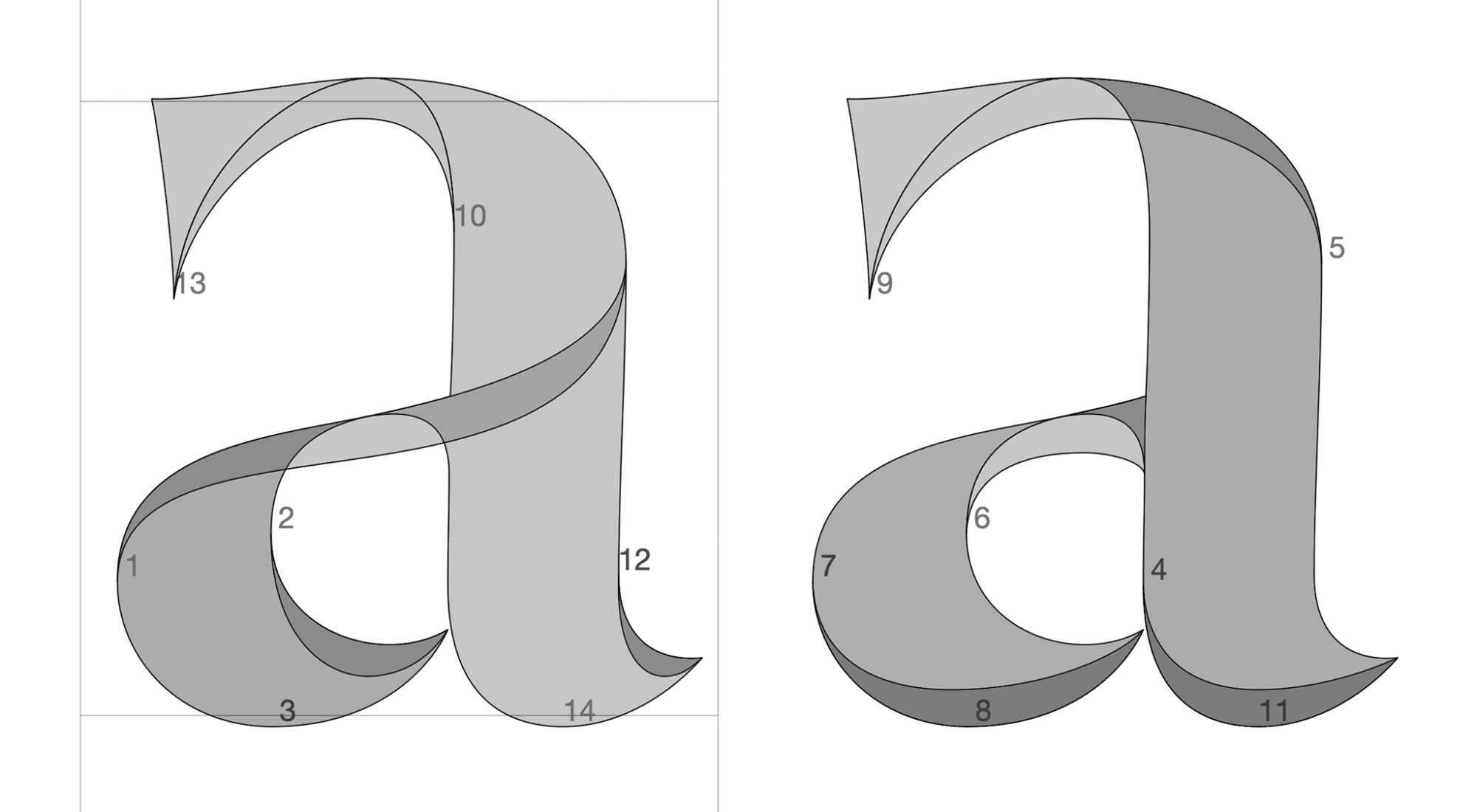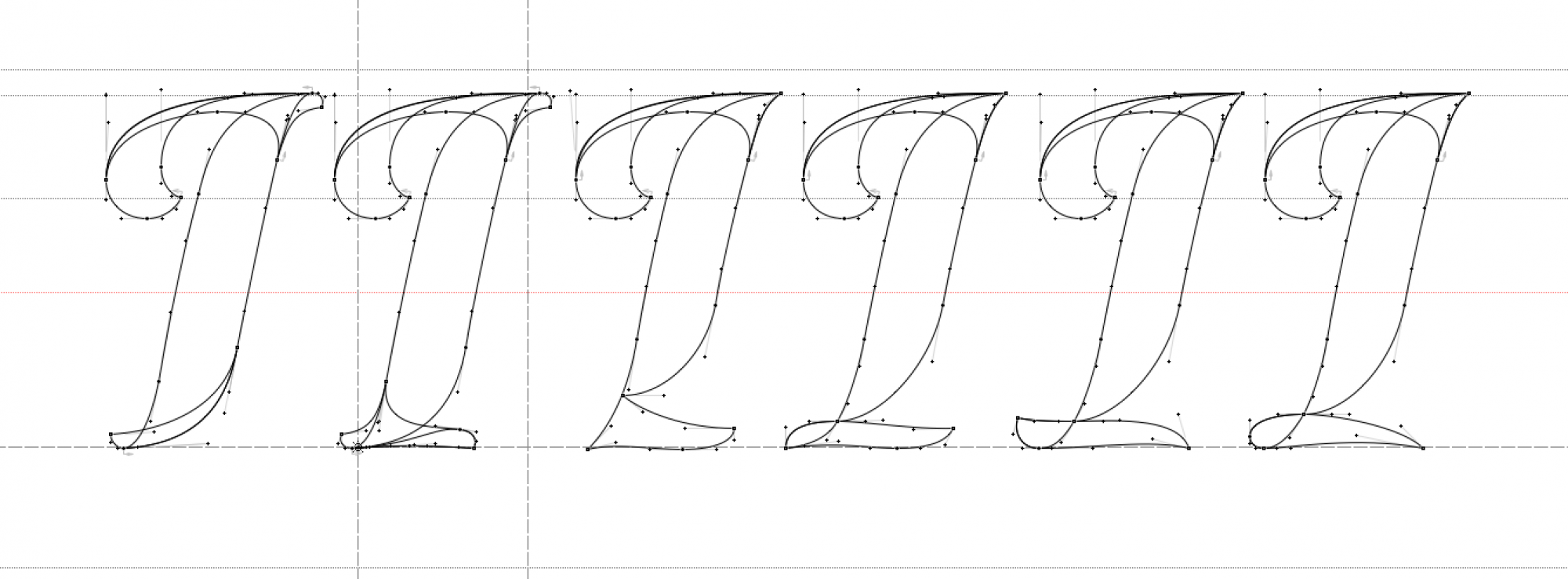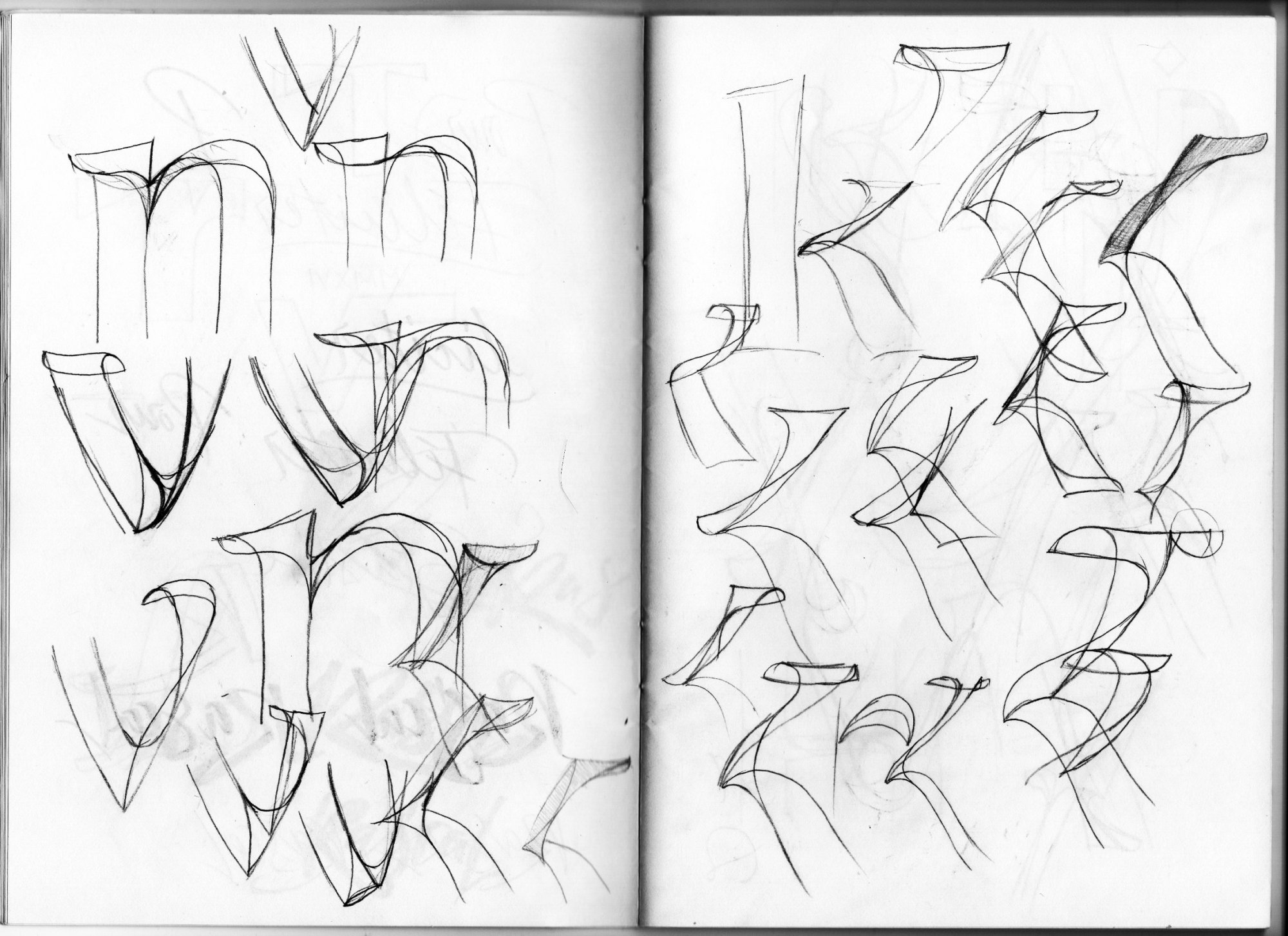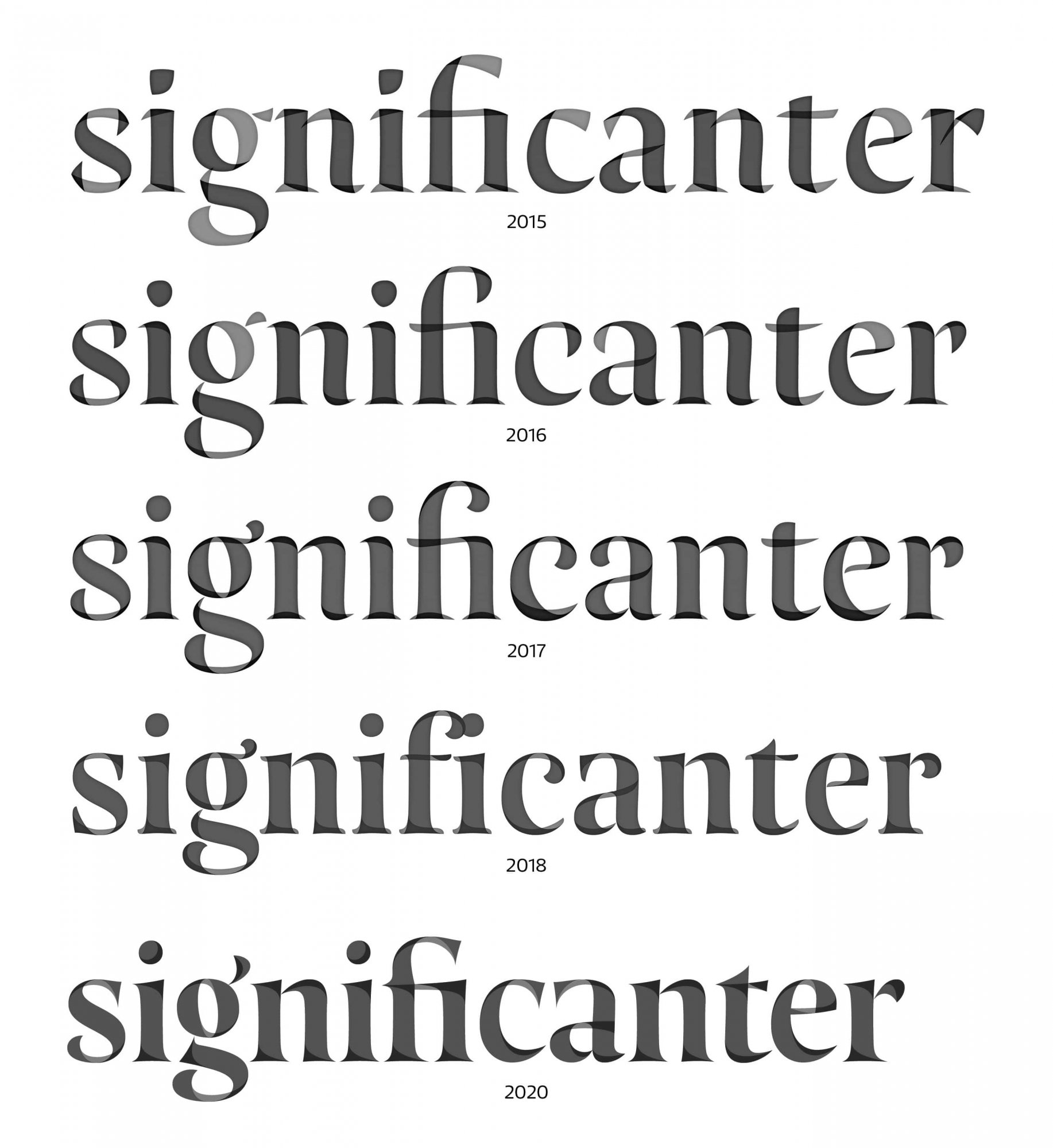
Making of Resonay
An ambitious plan
Is it possible to create a serious font that would work as an illustration rather than a text? This idea originated sometime in 2014. I had the idea of fresh typeface, which would emphasize its construction with 2 overlapping layers. It should also be as easy to use as possible. I started sketching a script font (something like Abelina from Sudtipos):
One of the first sketches shows the solution of the narrowing of the middle stroke.
It consisted of 2 equivalent fonts that only make sense if they are exactly matched (too difficult, I know, but I believed in the power of this design). The design was to support various irregularities, such as a good script font – random mixing of several variants of characters, many discretionary ligatures, bouncing baseline, and other lively details. The only thing that made the design a little easier was that the characters didn’t have to be joined. The result was to be an attractive script with great possibilities of customizing graphic programs.
The first digital version of the font - it's very fresh, but I wanted to get more out of this principle.
Script AKA serif typeface
Honestly – such a font was simply beyond my skills with FontLab5. But it couldn’t be resisted – I was obsessed with it. Already the first test in InDesign looked promising, the font came with tremendous energy and sharpness. But there were also doubts. How does this necessary accurate fit work together with irregularities and living imperfections? Will it look natural? Will I finish it in retirement? Such sober thoughts led me to mechanize the font so that some shapes could be used modularly. It would be a bit of a strange form of italic. So no bouncing letters at the baseline, no random inaccuracies, but more classic proportions and repeating patterns. But if I already have italic, why not do the upright version as well? The different design of the upright version will certainly be a big challenge because the principle I had designed fit better into Italic. On the other hand, the font thus gains wider possibilities of use, as it approaches the typical form of a text font. So the script suddenly became a serif with a traditional scheme. The brush turned into metal matrices…
Rationalization, but also a mix of styles
As expected, the transition to italic went smoothly, only the upright was a bit uncertain, there was no ease. It was also not possible to clearly determine the position where the anchor points are to be placed (where exactly is the place where the arc is to overturn?). Such an ambiguity remained in the font until its 4th version (the year 2017).
From that moment on, a great rationalization and cleaning of the shapes began. The first to notice was the imperceptible continuity of layers (Base and Cover), so they seemed to emerge and disappear indefinitely. I later found out that these common “singularity points” can be placed on top of curves, as is generally recommended for font design. This saved a few unnecessary anchor points and justified their placement. Upright changed from an embarrassed boy to a smooth gentleman.
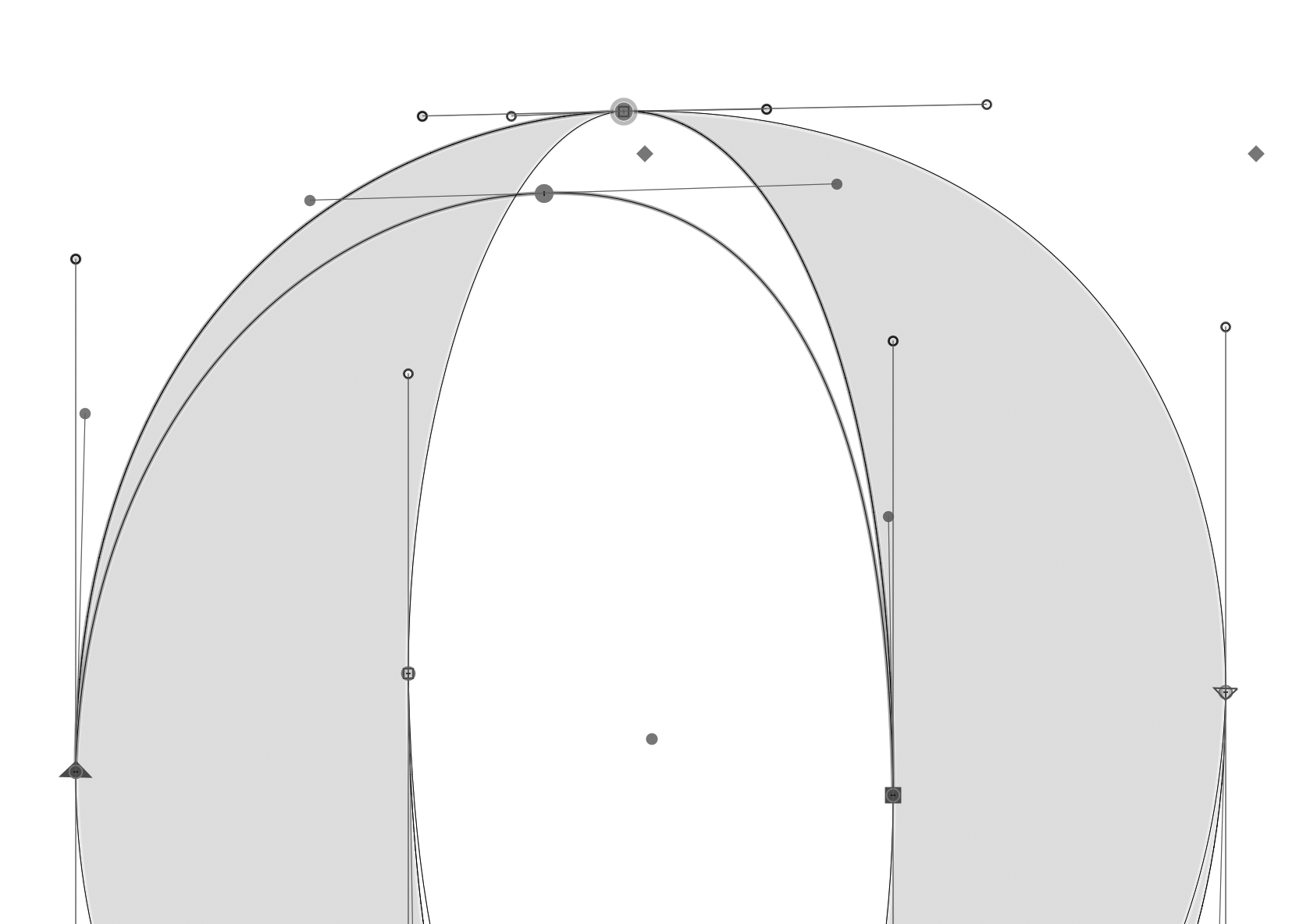
Similarly, the decision was made that the division into Base and Cover will not be based on the random alternation, but will take place according to their orientation – all vertical (thick) strokes will be Base and all horizontal (thin) strokes will be a Cover layer. This logic also meant an increase in the number of strokes. E.g. “o” got 4 strokes, instead of the original 2. Also the font lost some dynamics because e.g. said “o” actually became symmetrical in both directions. Symmetry and dynamics are not friends…
At this stage, the typeface was reminiscent of Baroque aesthetics with twisted terminals (maybe too sweet), so I thought of turning some tired curves into something more surprising, which could strike more. Since I was not bound by any historical model, I finally decided on an unconventional combination of ball and sharp terminals (even both in one letter), arranged only emotionally. The rotation of the pen, known from the gothic fracture, also penetrated italic (note the ending of “f” and “j”). Simply, it was not a matter of putting the font in a historical period, but taking from each period what is best suited to the design.
Evolution of Resonay from 2015 to 2020. We can see a shift from random and unbalanced design to clear and sleek curves with thoughtful construction. From trendy angular shapes, through baroque curls to renaissance sophistication.
Crazy idea
Here I came up with another madness – what if the whole Base layer could be used on its own? A huge complication for me, but interestingly expanded options for the user. After all, the maximum possible contrast looks great, it would be a pity if he could not show himself. The design had a natural tendency to do so, but how to solve the crossbar in “f” and “t”? After all, 2 strokes are crossing in different directions, which when I combine them into one, I deny the whole logic that I am trying to do. And what about the various ligatures, initial, final shapes, uppercase, and everything else I’ve already designed? I haven’t figured it out, but I estimate that this has delayed the development of Resonay by at least half a year.
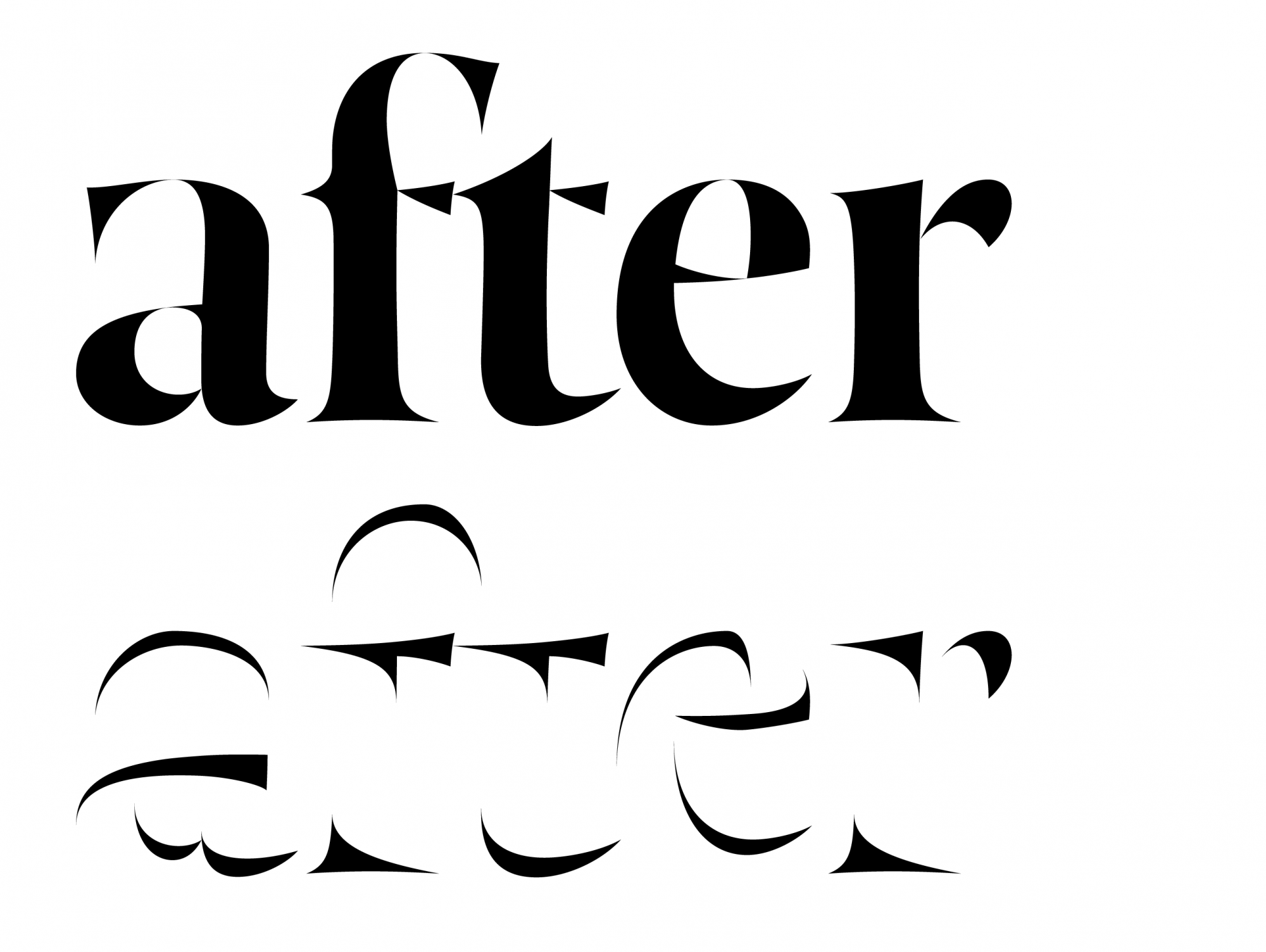
How to solve the crossbar on “f” and “t”so that the base version can work completely independently? The whole crossbar could not move to the Cover version, but also could not stay in full force because it would look inappropriate. This has proven to be the best solution.
Serifs and return dynamics
With the connection of serifs in the cover version, I was puzzled from the moment I left the script form. How to choose the right one from so many options? Over time, it has narrowed at least that there must be a completely smooth transition to the stem and some asymmetry. And since they seemed too fragmented in version from 2018, I decided to go back to simplicity and just copy the flared shape of the Base font + one dynamic line connecting the farthest points of the serif. This also resulted in the dynamization of circular shapes, which now connect the outer and inner contours of the letter and everything remains beautifully smooth. Elegance à la impossible Penrose triangle:
Lessons learned from this
Typedesign like any other design is made for people. Only users can set a true mirror for it. If they don’t understand your design, it doesn’t mean they’re stupid, or it’s a stupid design, just maybe you didn’t have enough distance from your creation and you overcomplicated it with good intentions. Today’s type design directly seduces to this – the possibilities are constantly expanding, the fonts are becoming more complex. From a certain point, however, it goes beyond the distinctive ability of the user. He may begin to consider your artistic elements or features as a mistake. And so your overwork becomes not only unnecessary for a good idea but even harmful. This probably happens whenever you work on something for too long. However, working on something for a very long time and not killing the freshness in it is the ultimate challenge for any designer. This is the lesson this project taught me.